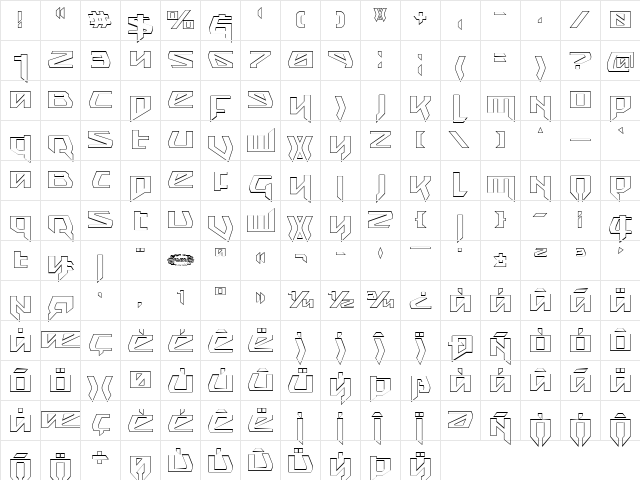
Snubfighter Outline Regular
| Designer | Erikstormtrooper and Iconian Fonts |
Design Context for Snubfighter Outline Typeface
Snubfighter Outline brings ornamental detail and strong personality to headlines and identities, where visual impact matters more than quiet functionality.
Font Pairing: Pair with a clean neutral sans-serif for body copy to let Snubfighter Outline's character lead without overwhelming the composition.
Pro Tip: Treat Snubfighter Outline as the centrepiece of your typographic hierarchy. One strong heading set in a decorative face can carry an entire layout.